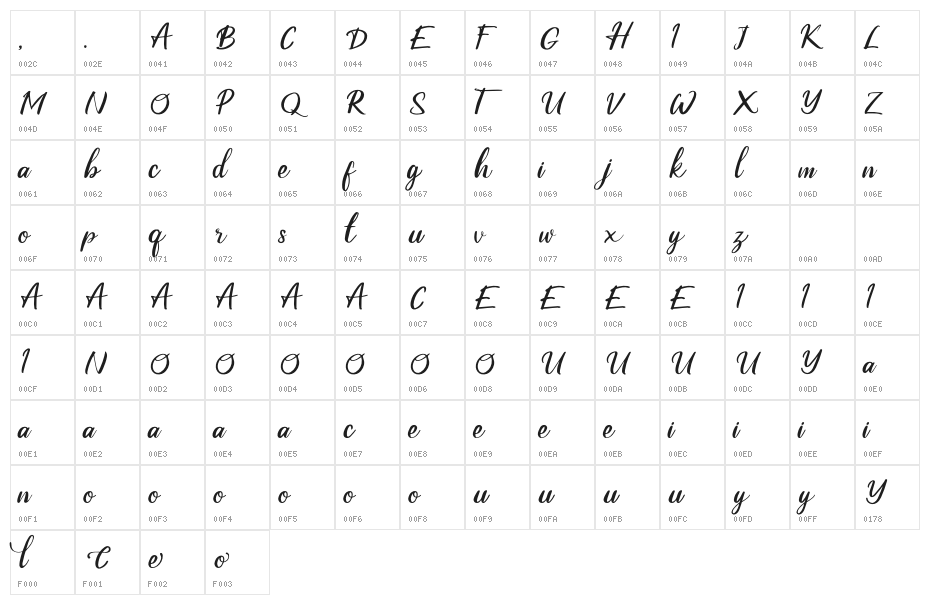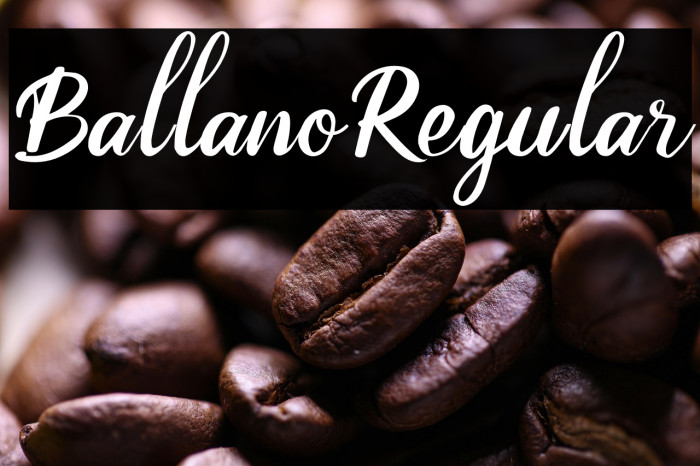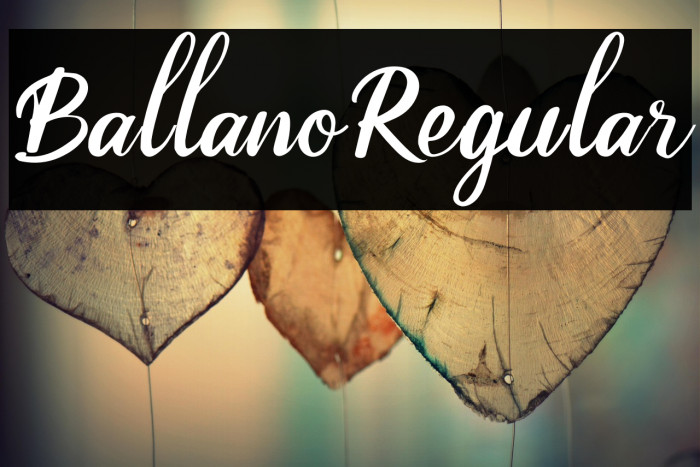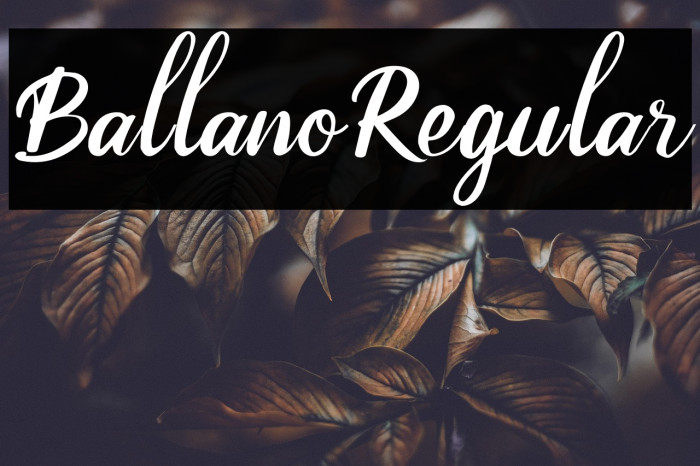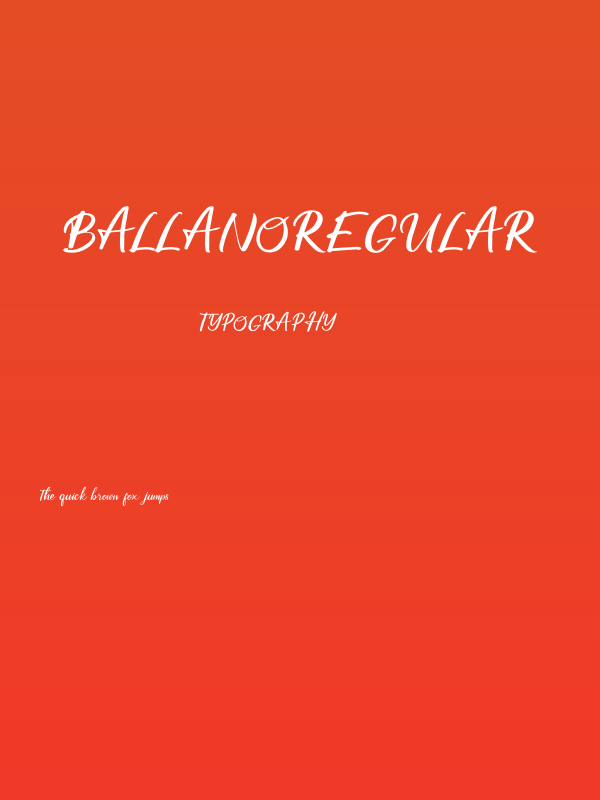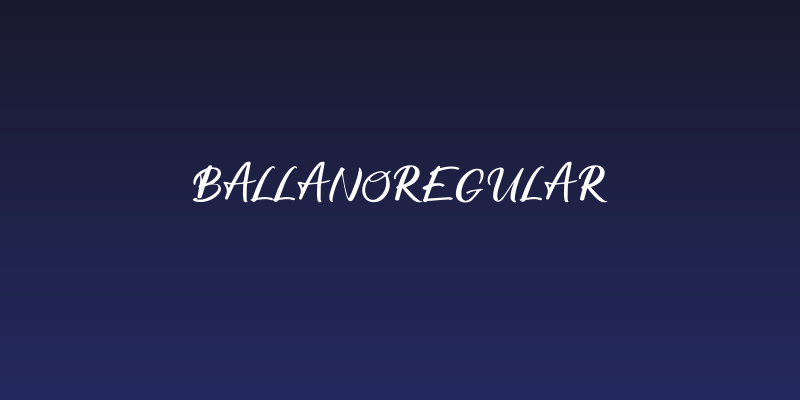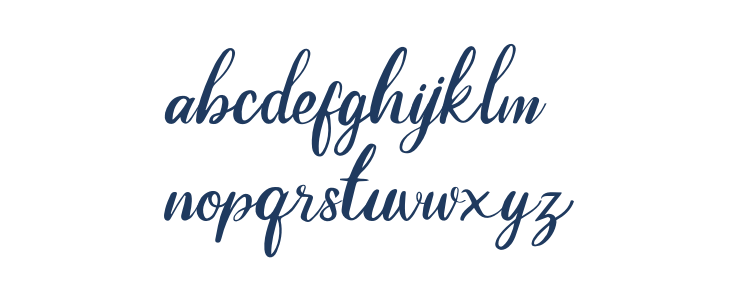
BallanoRegular Font
| उपयोग का मामला | Logos, Invitations, Decorative text |
| सुझाए गए प्रोजेक्ट | Ideal for wedding invitations, greeting cards, logo design, and branding materials that require a touch of elegance and sophistication. |